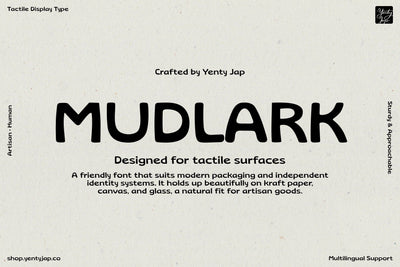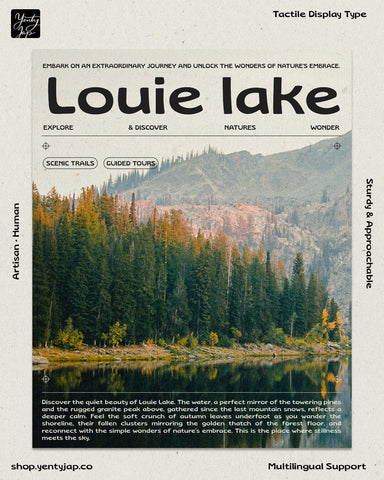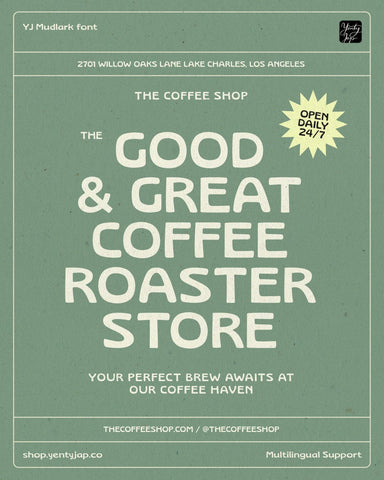
YJ Mudlark | Playful Rounded Display Font for Branding & Packaging
YJ Mudlark is a heavy, monoline sans-serif display typeface designed to bring a grounded, approachable, and human feel to branding and packaging. Built with thick, low-contrast strokes and softly rounded terminals, the font balances structural stability with a casual, hand-drawn rhythm. It was designed specifically to fill the gap between rigid, geometric sans-serifs and overly whimsical display faces, offering an organic yet highly legible solution for modern identity design.
The distinctiveness of YJ Mudlark lies in its subtle structural irregularities and soft corner treatments. The letterforms feature wide proportions, a generous x-height, and open counters, ensuring excellent readability at a distance or on textured packaging materials. The heavy stroke weight gives it an immediate visual presence, while the gentle rounding of the terminals removes any harshness, lending a friendly, tactile quality to printed and digital applications.
This typeface is exceptionally well-suited for independent brands, artisanal food and beverage packaging, hospitality signage, and lifestyle product design. Its sturdy construction holds up beautifully on tactile surfaces like unbleached cardboard, canvas, and glass bottles, making it a natural choice for brands that value sincerity, warmth, and an approachable character.
Ideal Applications:
- Food & Beverage Packaging: Artisan chocolate bars, coffee bags, craft beer labels, and bakery boxes.
- Hospitality Branding: Menus, window decals, and signage for cafes, restaurants, and neighborhood eateries.
- Identity Design: Wordmarks, sub-brands, and secondary assets for lifestyle, organic, and independent brands.
- Digital Graphics: Social media headlines, blog graphics, and merchandise design requiring an authentic, friendly tone.
- Print Collateral: Coasters, tote bags, aprons, and promotional posters.
Whether you're building a new brand or refreshing an existing one, YJ Mudlark adds warmth, character, and a handcrafted feel while remaining clean, modern, and highly legible.